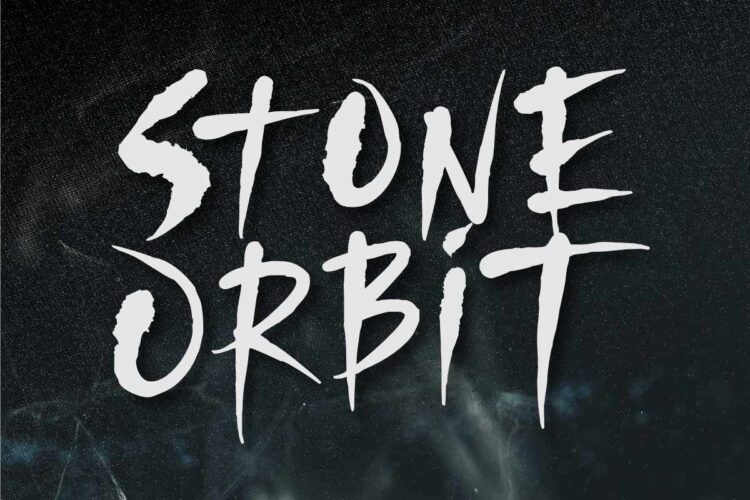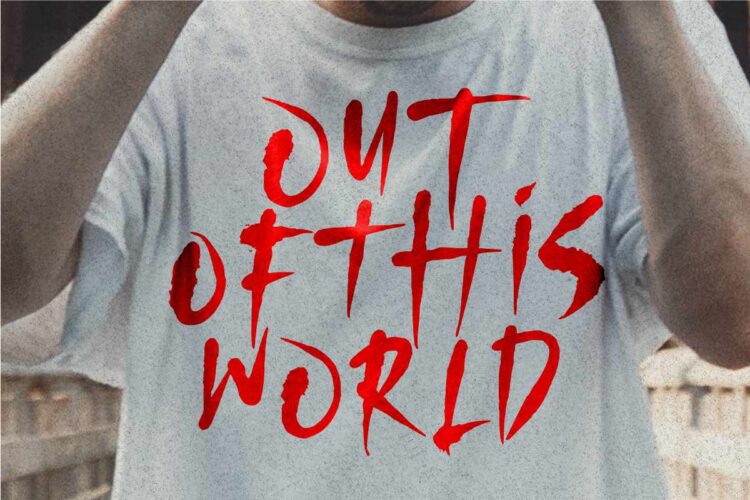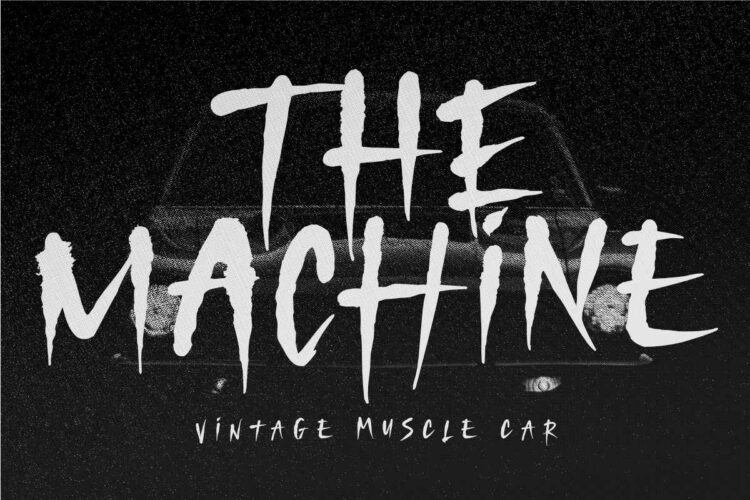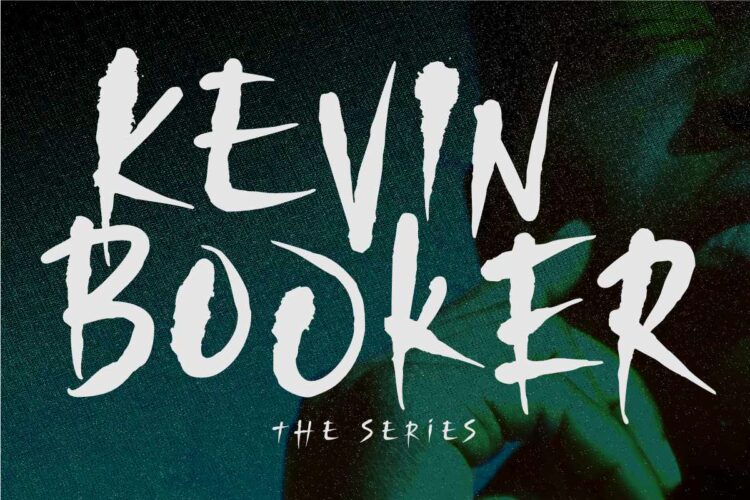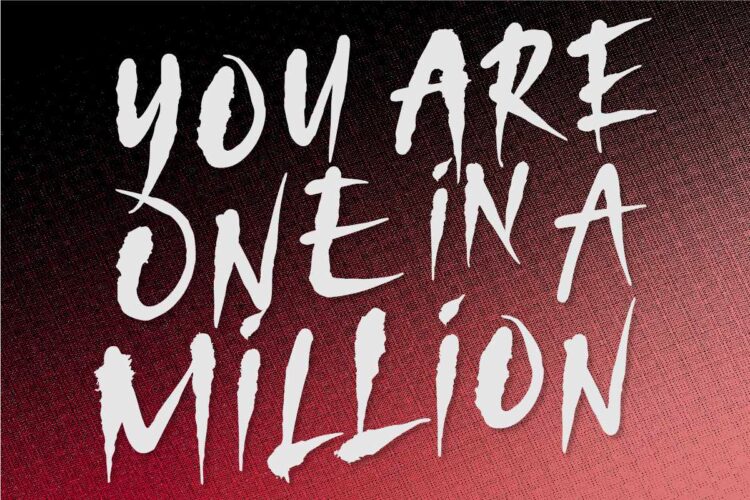
Introducing Stone Orbit – a very cool font for those looking to make a bold statement. This rough tough brush font is sure to give your project an edge! It’s carefree and packed with attitude. Its unique letter forms create an interesting texture that stands out from other fonts, making it ideal for posters and logos. It’s versatile enough to fit any style — whether it’s grunge, urban, or old school!